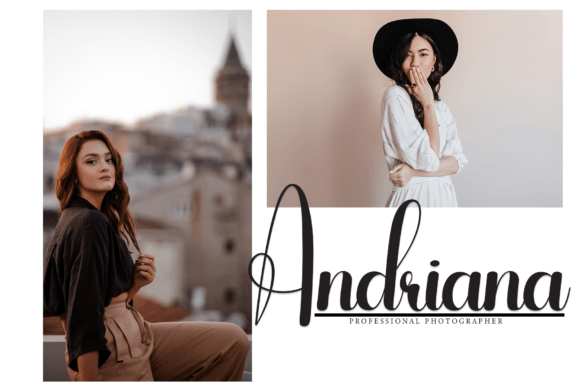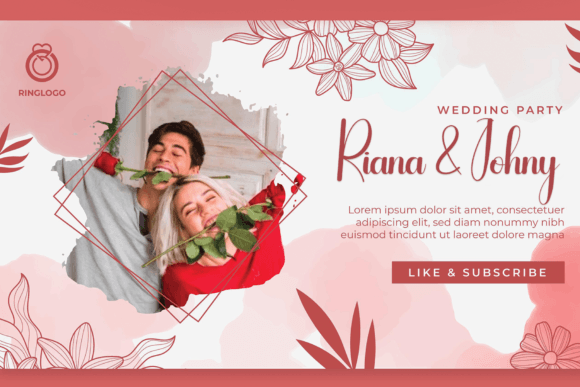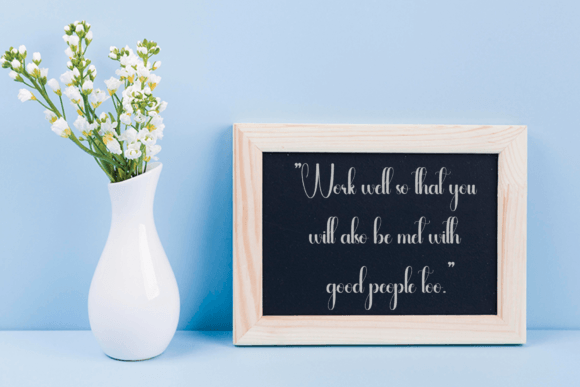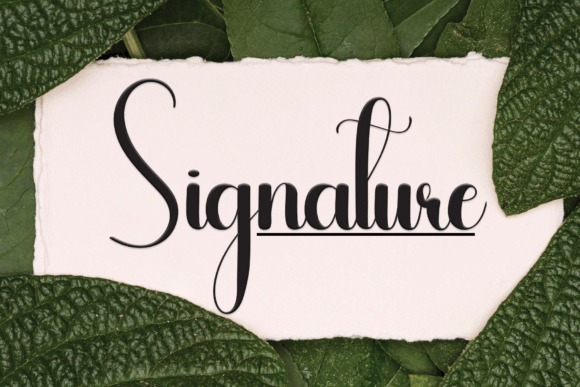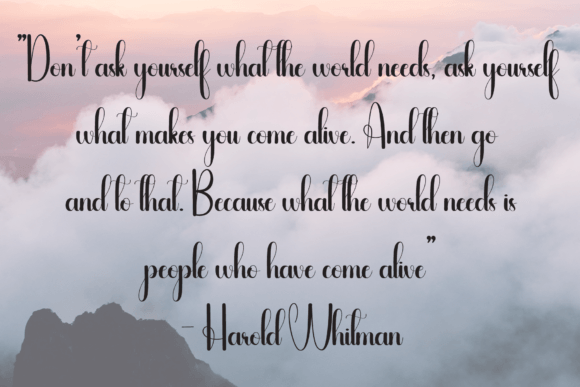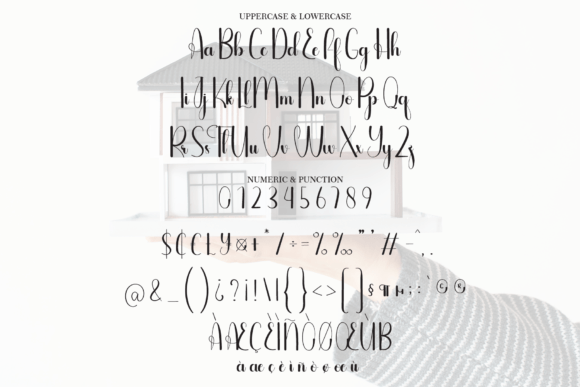
Introducing Handhome Font: The Sweet and Friendly Handwritten Font for Your Design Needs
Are you a designer or crafter looking for a font that can add a personal touch to your designs? Look no further than Handhome Font! This sweet and friendly handwritten font is perfect for creating beautiful wedding invitations, cards, and other designs that require a fun and playful touch.
What Makes Handhome Font Special?
Handhome Font is a fresh and neat handwritten font that is designed to bring a sense of warmth and personality to your designs. Its sweet and friendly style makes it ideal for a variety of projects, from wedding invitations and cards to social media graphics and blog posts.
One of the standout features of Handhome Font is its versatility. It can be used for both personal and commercial projects, and its flexibility makes it easy to pair with other fonts to create a unique and eye-catching design.
Handhome Font is particularly well-suited for wedding invitations and cards. Its elegant and cursive style gives designs a romantic and sophisticated feel, making it perfect for couples looking to create beautiful and memorable wedding stationery.
Whether you’re a designer looking to offer custom wedding invitation services or a crafty couple looking to create your own DIY wedding stationery, Handhome Font is a great choice. Its easy-to-read style and beautiful lettering make it perfect for conveying important details, such as wedding dates, times, and locations.
Adding a Fun Touch to Your Designs
Handhome Font is not just limited to wedding invitations and cards. Its fun and playful style makes it perfect for adding a personal touch to a variety of designs, from social media graphics and blog posts to posters and flyers.
Whether you’re looking to create a design that stands out from the crowd or simply want to add a bit of personality to your work, Handhome Font is a great choice. Its unique and handwritten style gives designs a human touch that is sure to engage and delight your audience.
Why Designers and Crafters Love Handhome Font
Designers and crafters love Handhome Font for a variety of reasons. Here are just a few:
- Easy to read: Handhome Font is clear and easy to read, making it perfect for designs that require a lot of text.
- Versatile: Handhome Font can be used for a variety of projects, from wedding invitations and cards to social media graphics and blog posts.
- Unique: Handhome Font has a unique and handwritten style that gives designs a personal touch.
- High-quality: Handhome Font is a high-quality font that is designed to produce beautiful and professional-looking results.
How to Use Handhome Font in Your Designs
Using Handhome Font in your designs is easy. Here are a few tips to get you started:
- Pair it with other fonts: Handhome Font pairs well with other fonts, such as sans-serif fonts and script fonts.
- Experiment with different sizes: Handhome Font looks great in a variety of sizes, from large headings to small body text.
- Add some color: Handhome Font looks great in a variety of colors, from bright and bold to soft and pastel.
Handhome Font is a sweet and friendly handwritten font that is perfect for designers and crafters looking to add a personal touch to their designs. Its fresh and neat style makes it ideal for wedding invitations, cards, and other designs that require a fun and playful touch.
Whether you’re a seasoned designer or a crafty DIY enthusiast, Handhome Font is a great choice for any project. Its versatility, ease of use, and high-quality design make it a valuable addition to any design toolkit.